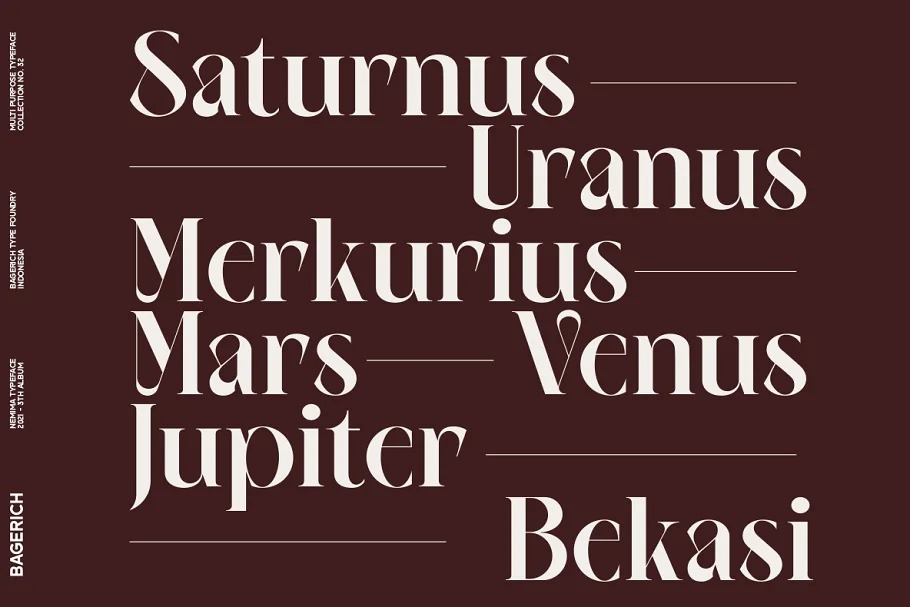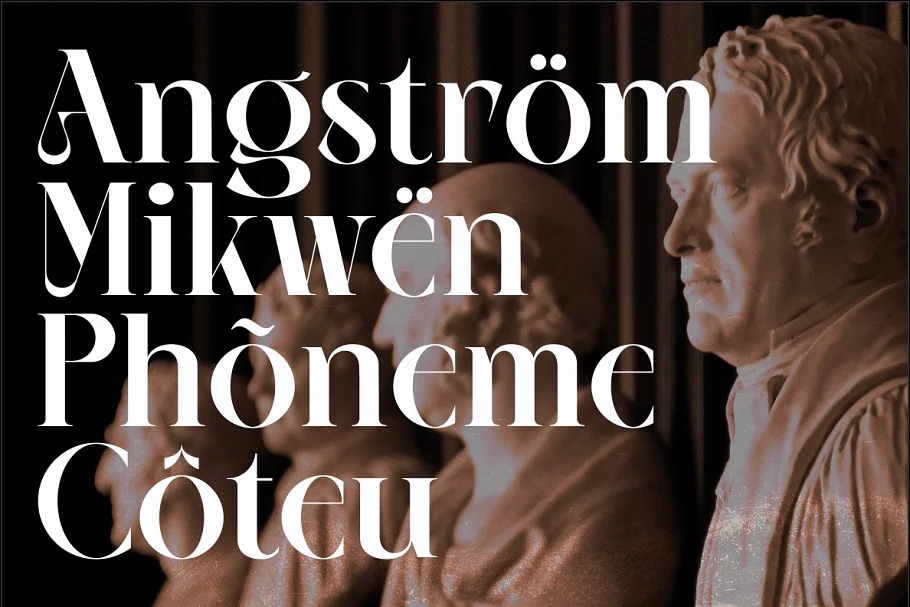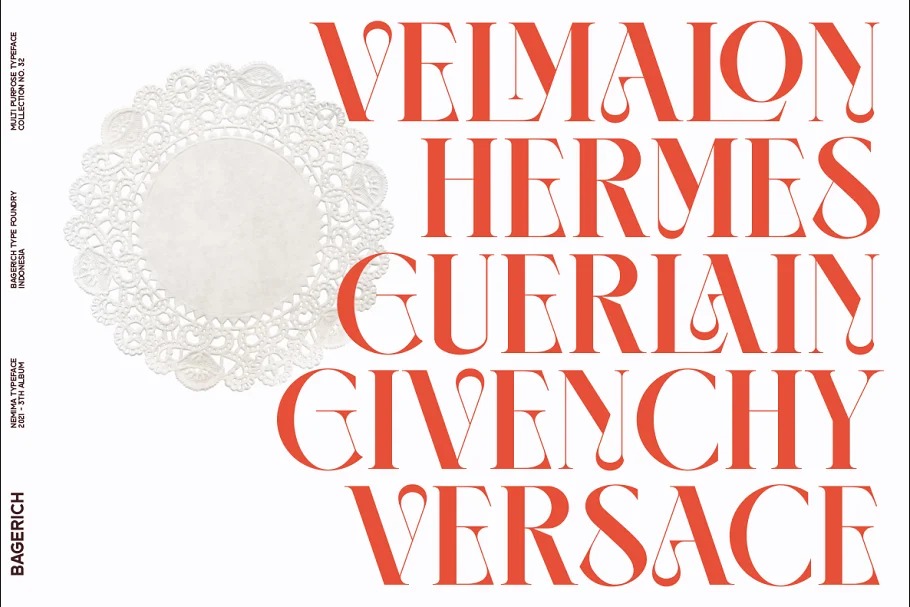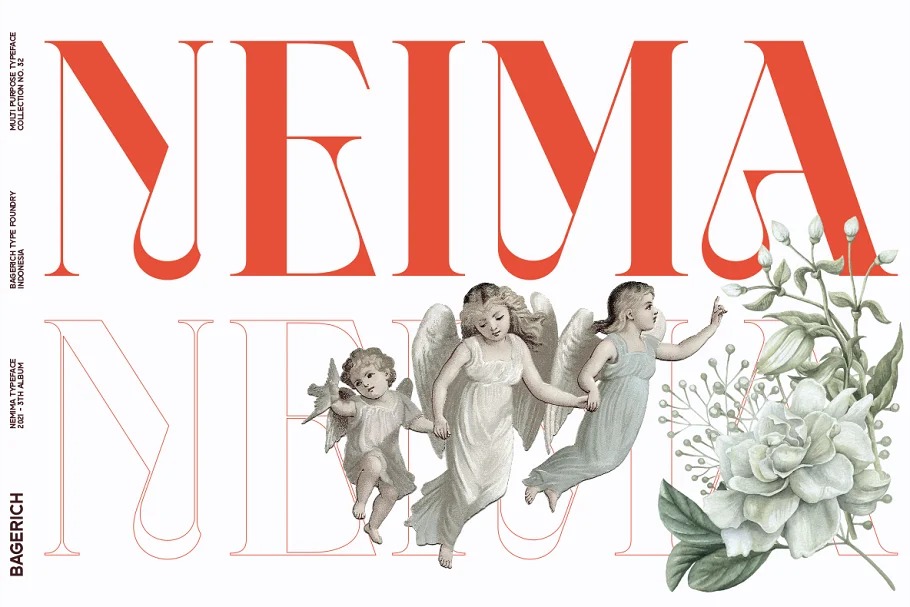
Neima Serif Font is a classic serif typeface created by Bagerich Type Foundry with visual elegance, and smooth curves, making your work look true and attractive. Neima support multilingual languages, numbers, punctuation and alternative-ligatures. Create unique & beautiful logotype, use it as an elegant solution for your next magazine layout, or choose Neima for any graphics that require a sleek look with a elegant flair.